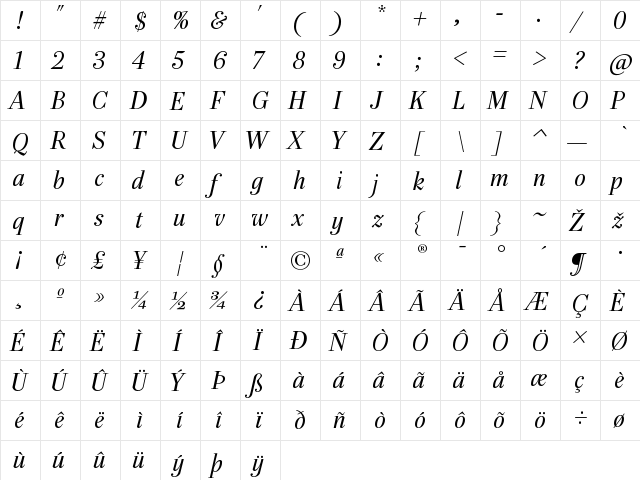
PB96TTP-Italic Regular
Design Context for PB96TTP-Italic Typeface
PB96TTP-Italic takes a measured approach to typography — its balanced proportions and neutral character make it a reliable workhorse for both digital and print work. The dynamic lean of this cut emphasises speed and emphasis in any layout.
Pro Tip: Try PB96TTP-Italic for annotation and caption copy alongside an upright companion — the contrast in angle creates a dynamic but ordered typographic system.